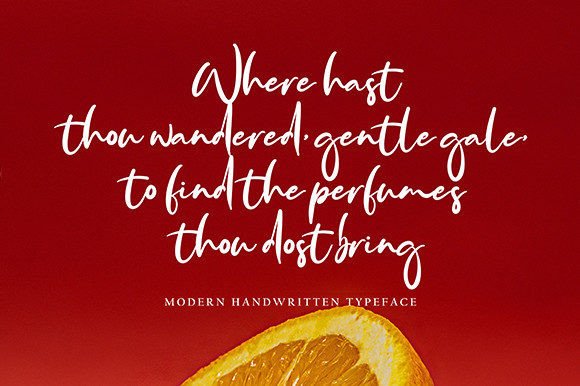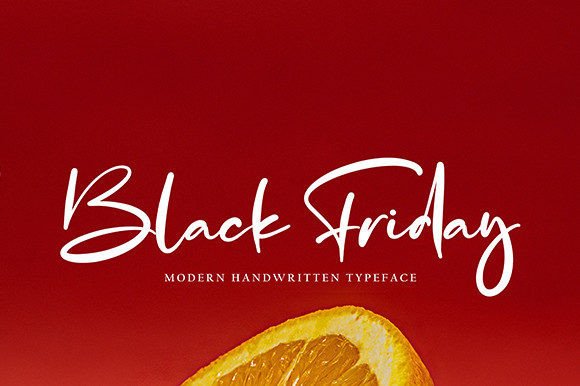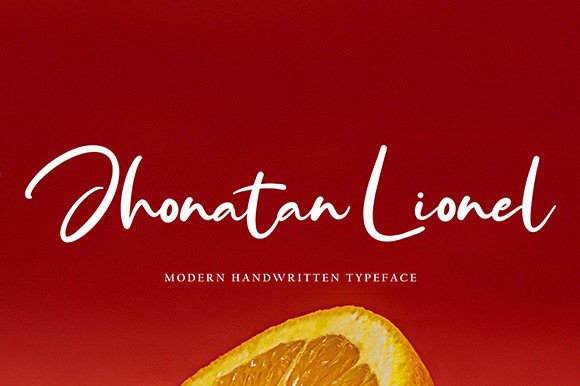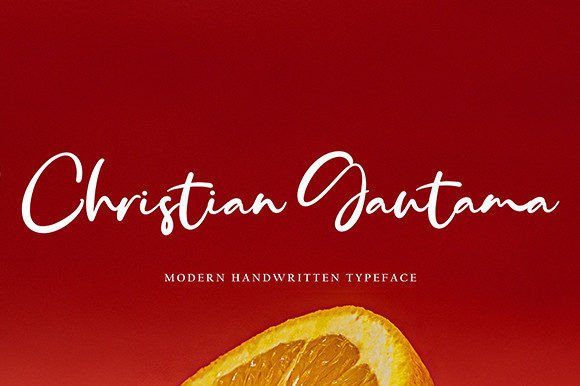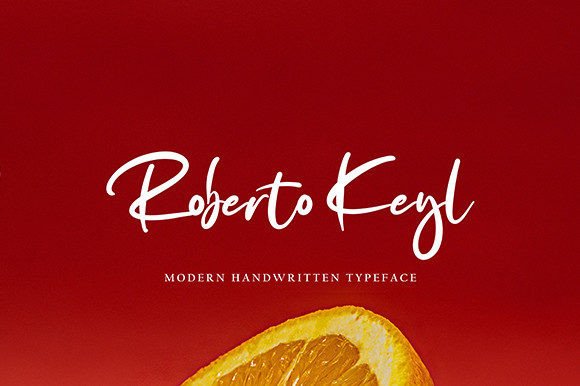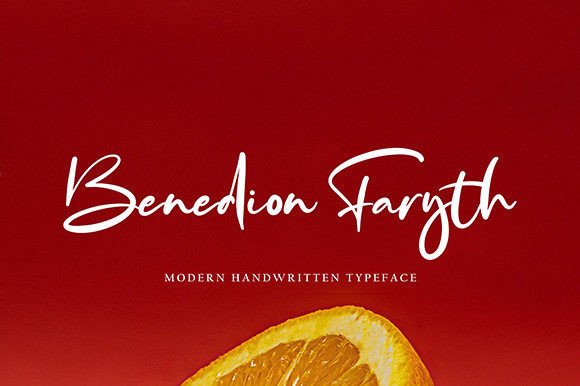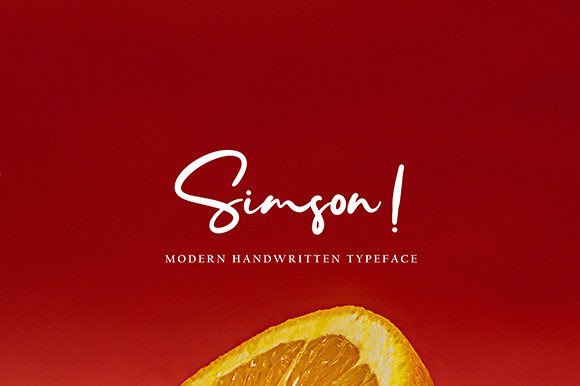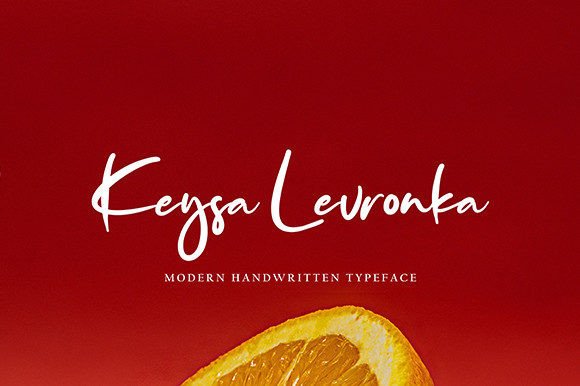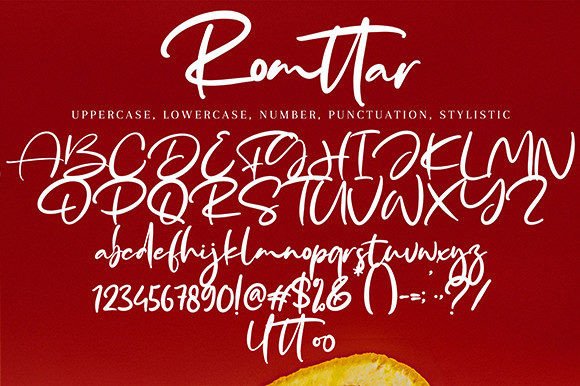
Romttar Font
About Romttar Font
Romttar is a superb script font with a flowing style. It will be perfect for many different projects such as quotes, logos, blog headers, posters, banding, letters, invitations, stationery, etc.